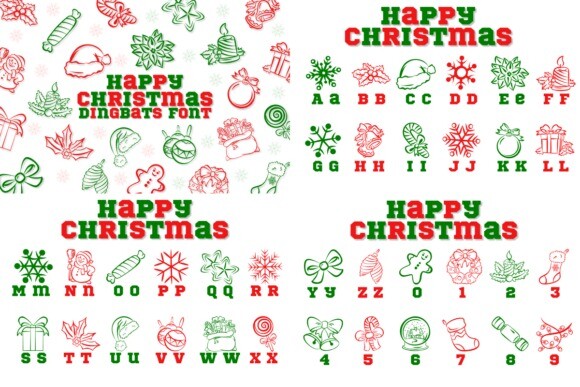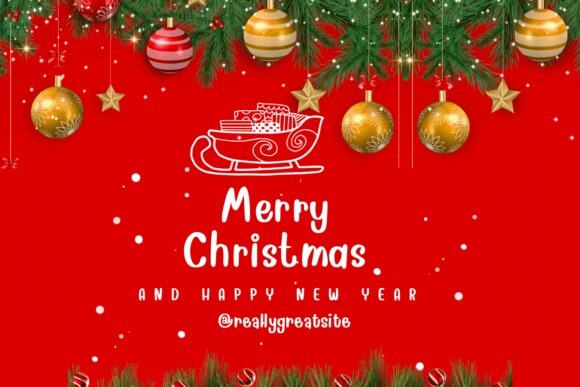
Christmas Doodle Bundle Font, is a fun and festive dingbat font set filled with snowflakes, holiday decorations, and Christmas-themed designs. Perfect for adding a cheerful touch to cards, crafts, and creative projects!